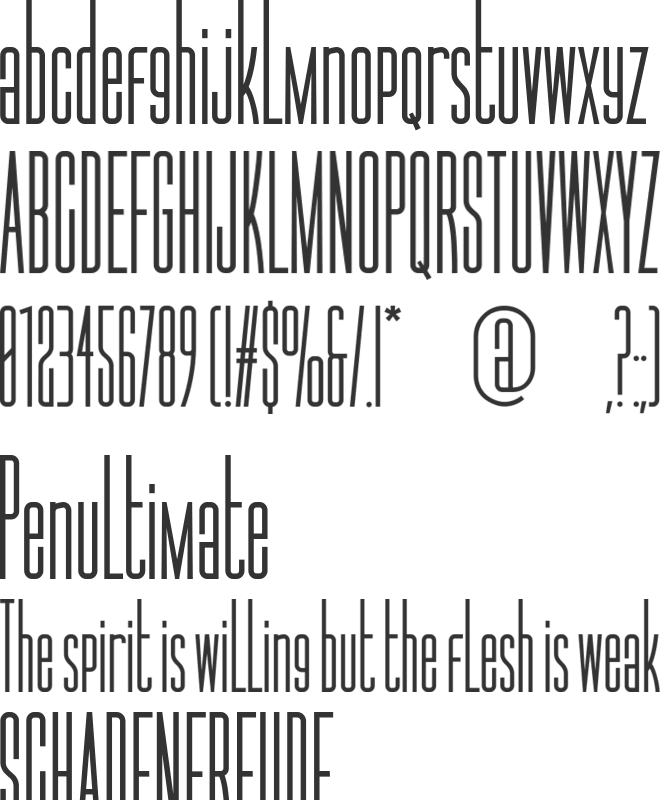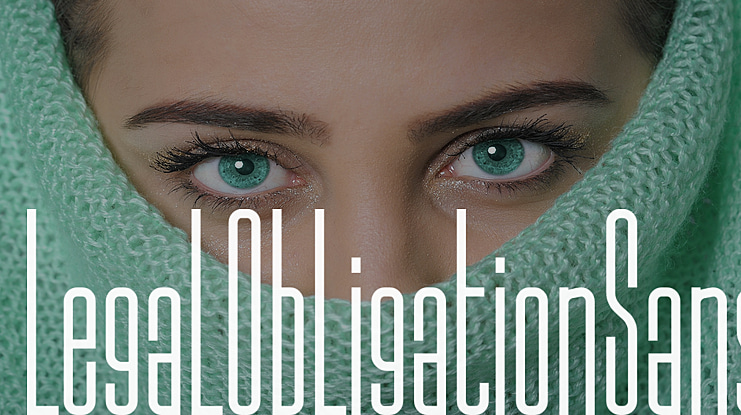
LegalObligationSans Font
Christopher King
A dedicated compressed Sans Serif font for movie poster credit blocks and cinematic title designs. A workmanlike tool for adding extensive cast and crew information to movie posters without dominating the overall layout. Additional weights available in the full version https://wingsart.studio